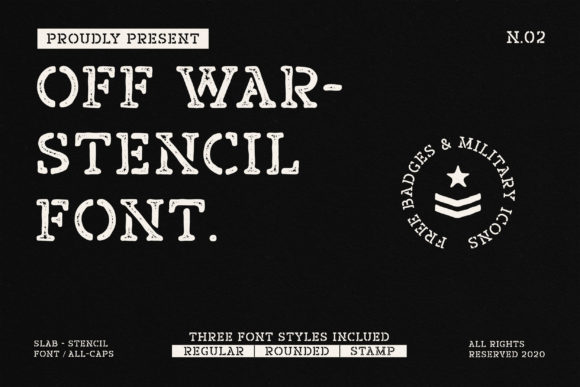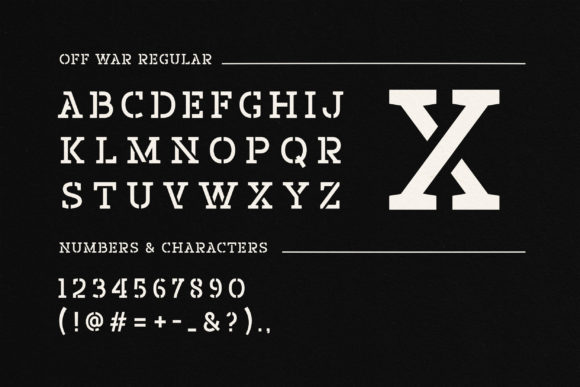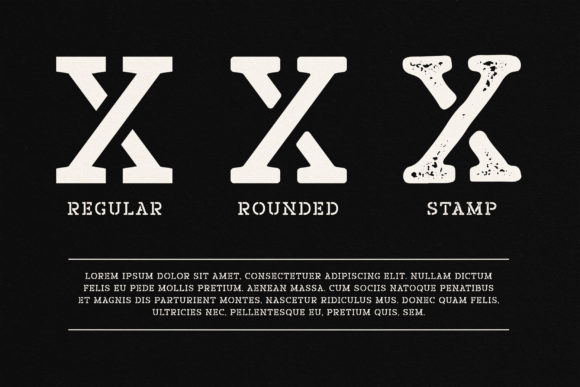
Off War Font
Off War is a slab serif stencil font. It comes in three styles: regular, rounded and stamp. This unique font is perfect for logos, badges, apparel, posters and more.